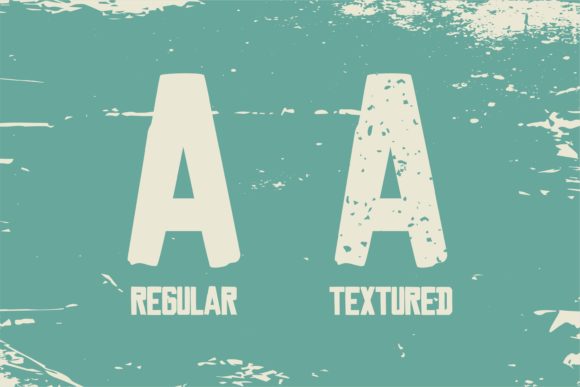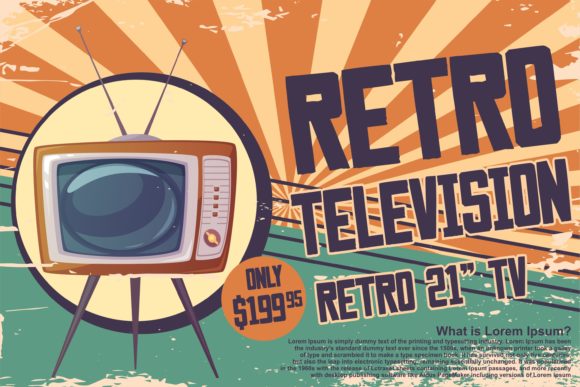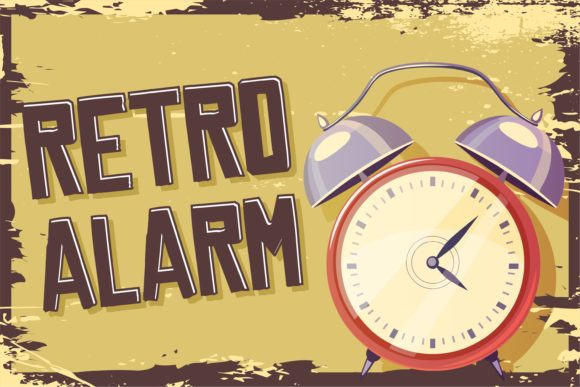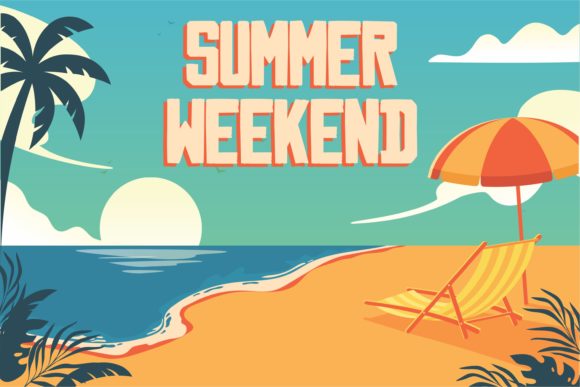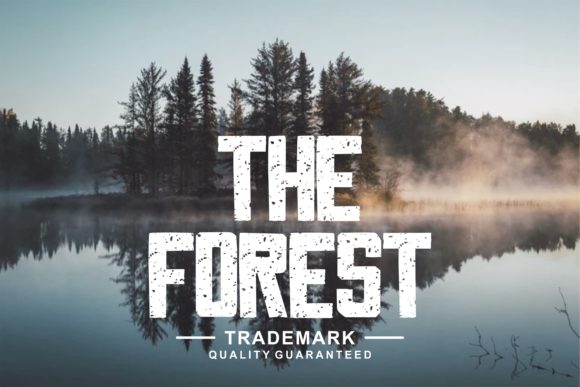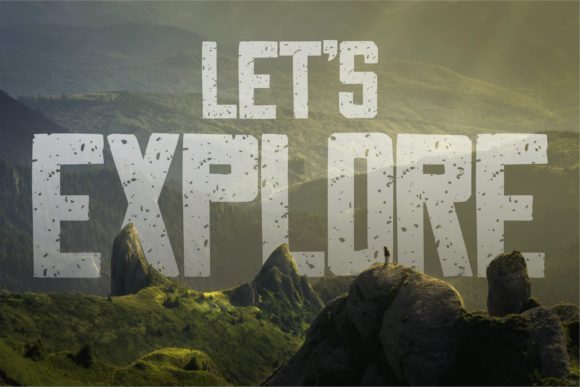
Introduction to Redpine Font
Have you ever found yourself stuck in a creative rut, searching for that perfect font to elevate your design project? It’s a moment we’ve all been in, staring at a blank screen, wondering how to bring our vision to life. But what if I told you that the key to unlocking that special something lies in a simple yet unique sans serif font?
Meet Redpine Font, the perfect design resource for adding a touch of retro charm to any project. With its high quality and clean design, Redpine Font is an instant game-changer for designers looking to take their work to the next level. Whether you’re working on a branding project, a website, or a social media graphic, Redpine Font is sure to bring a level of sophistication and elegance that will leave a lasting impression.
Key Features of Redpine Font
- Unique, modern design that adds a touch of elegance to any project
Honest Review: Redpine Font
I recently stumbled upon the Redpine Font and I’m excited to share my honest review. As a designer, I’m always on the lookout for high quality design resources that can elevate my creative projects. The Redpine Font definitely checks that box.
- ✨ The font’s clean and modern design makes it perfect for a variety of projects, from digital products to print materials.
- ✨ The transparent background makes it easy to overlay the font on top of other design elements.
- ⚠️ The font only comes in a few weights, which may not be suitable for projects that require a lot of font variation.
- ⚠️ The font may not be suitable for very small text sizes, as it can become difficult to read.
Overall, I’m really impressed with the Redpine Font. While it may have some limitations, its high quality design and free download make it a valuable resource for designers. If you’re looking for a clean and modern font for your next creative project, the Redpine Font is definitely worth checking out.
How to Use Redpine Font
The Redpine Font is a high-quality design resource perfect for any creative project. Its unique and elegant style makes it an excellent choice for various applications.
Use the Redpine Font on a transparent background to give your design a more modern look. Experiment with different font sizes and styles to create a unique and eye-catching design.
The Redpine Font is perfect for creating invitations, business cards, and other marketing materials. Its elegant style makes it an excellent choice for wedding invitations, graduation announcements, and other special occasion designs.